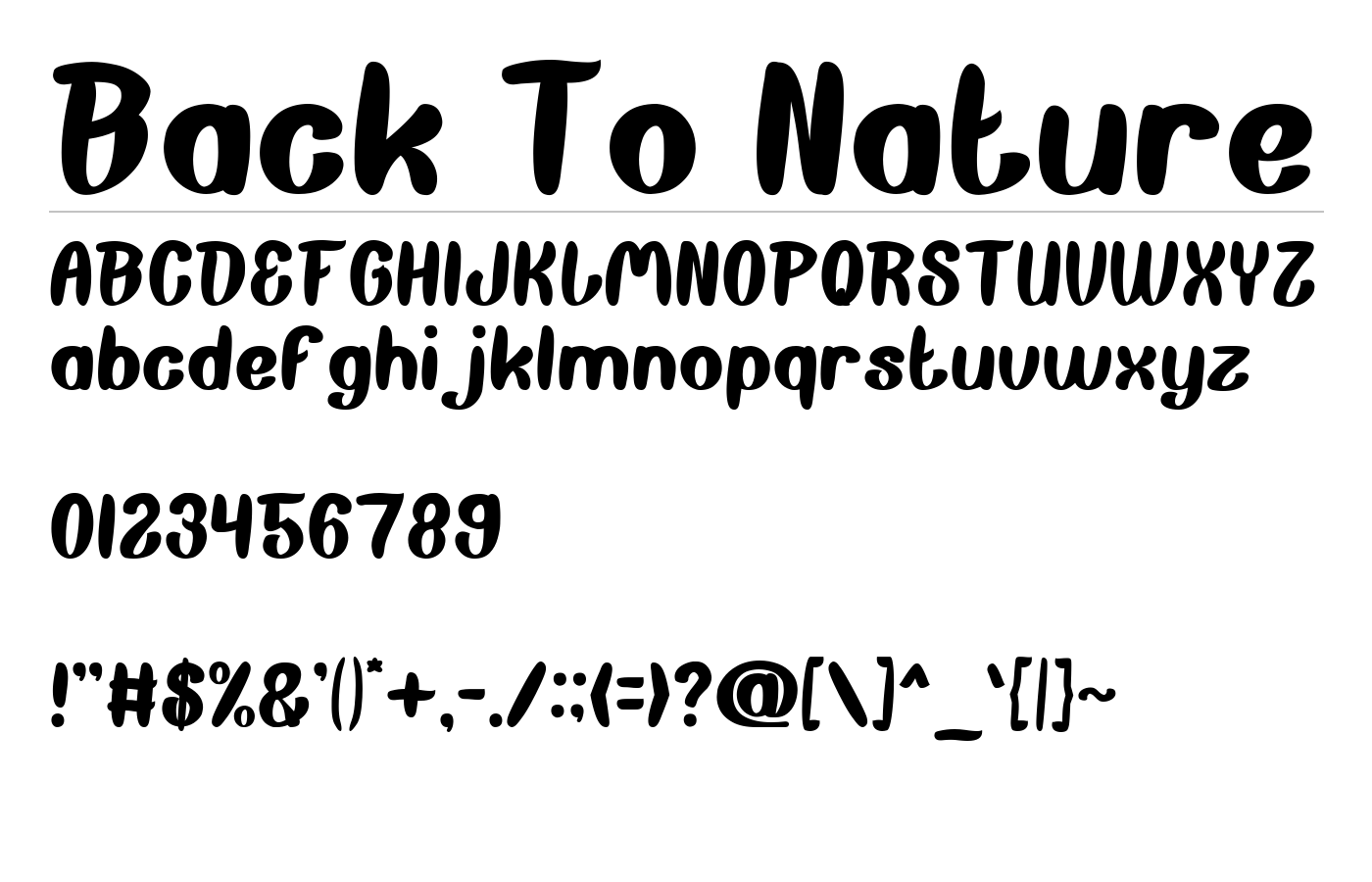
Back To Nature is a playful and friendly handwritten font with rounded, bold strokes that give it a warm and approachable feel. Its casual, slightly irregular letterforms make it perfect for projects that want to evoke a natural, organic vibe while remaining readable and inviting. This font works well for branding, packaging, and headlines where a relaxed yet lively personality is desired.
Back To Nature Font
About Back To Nature Font